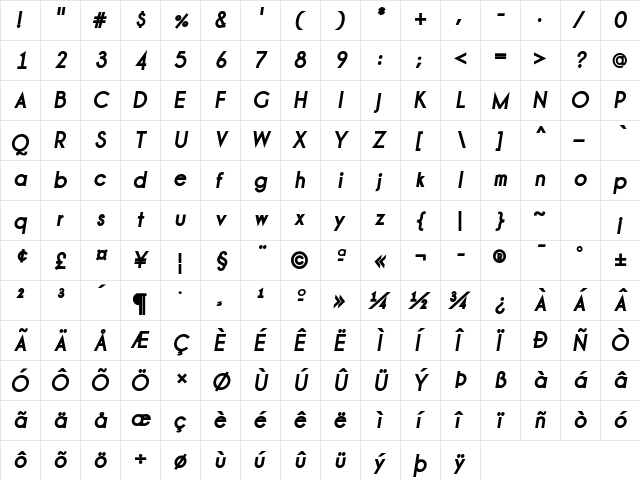
Champagne & Limousines Thick Bold Italic
Design Context for Champagne & Limousines Thick Typeface
Champagne & Limousines Thick is a composed and adaptable typeface that performs quietly and consistently across a wide range of design contexts. Its italic angle brings a sense of urgency and motion to the letterforms. Its bold stroke weight gives it real presence on the page.
Pro Tip: Use Champagne & Limousines Thick for emphasis, pull quotes, and subheadings where its slanted energy can add rhythm to the layout.